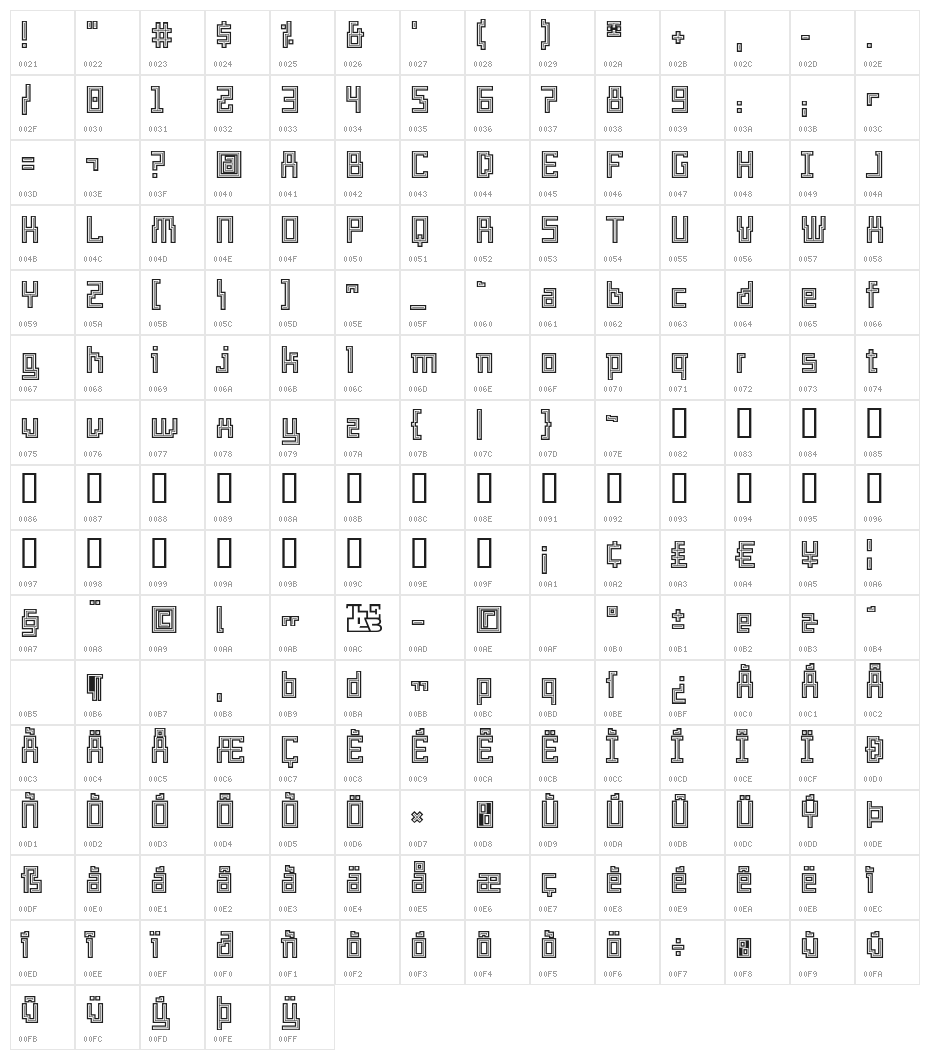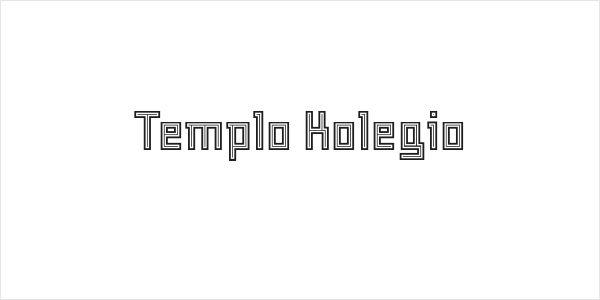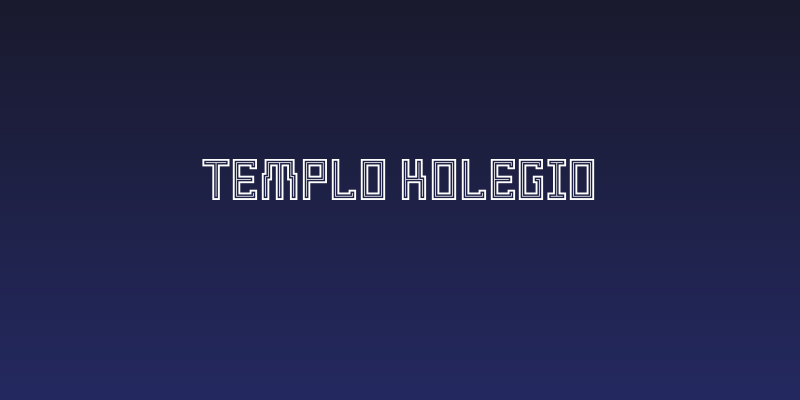
Templo Kolegio Font
Templo Kolegio Description
This font features a bold, geometric design with a distinct outline style. Each character is constructed with a double-line effect, creating a three-dimensional appearance. The uppercase and lowercase letters maintain a consistent height, contributing to a uniform look. The numerals and special characters follow the same design principles, ensuring cohesiveness across all glyphs. The font's unique structure makes it stand out, with a futuristic and digital aesthetic that is both eye-catching and modern.
| Proposed Projects | Ideal for digital art, video game graphics, futuristic branding, and tech-themed posters. |